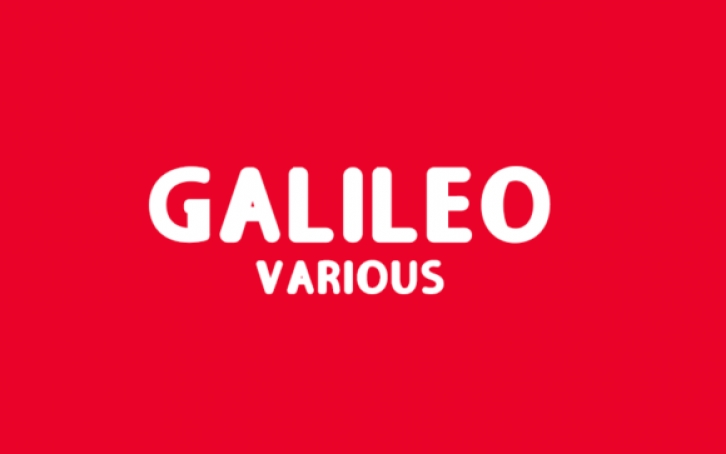
Galileo Various is a distinct, whimsical sans serif that blends traditional influences into a contemporary aesthetic. Use Galileo Various to achieve an exquisite, yet subtle look and maximum versatility.